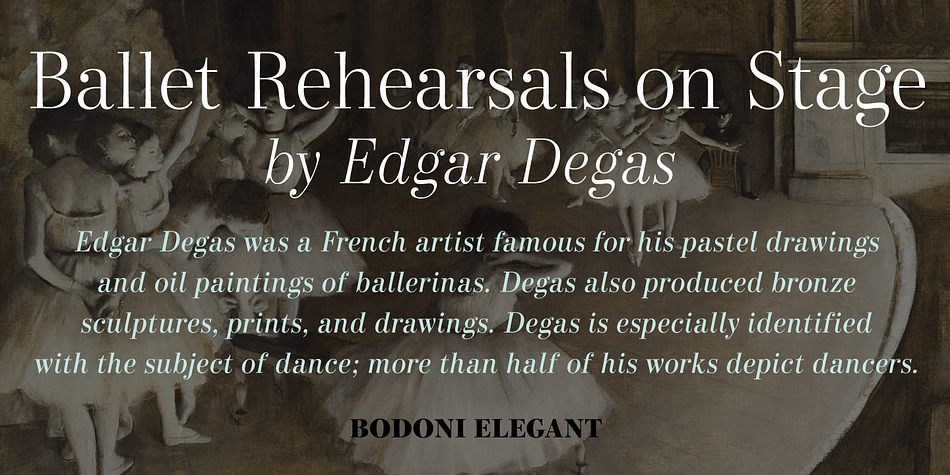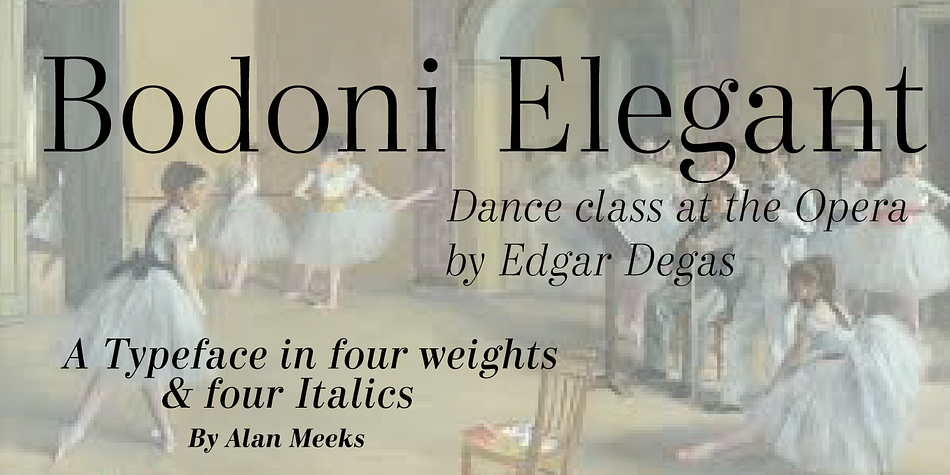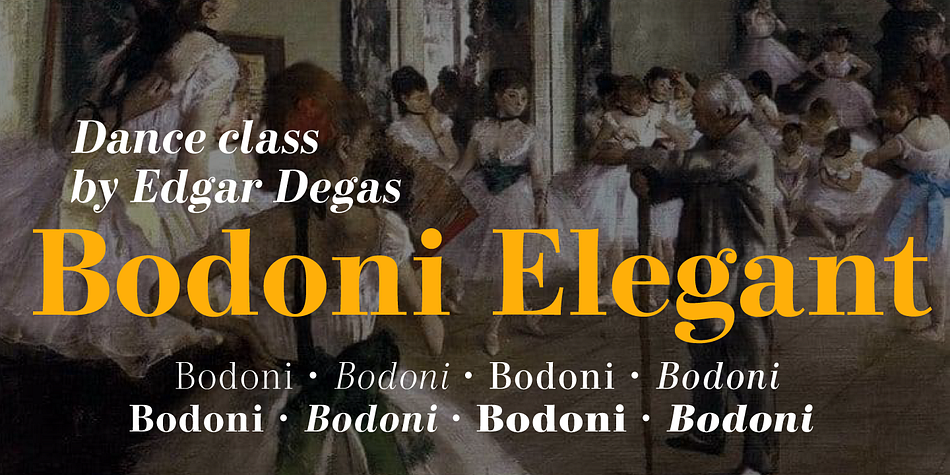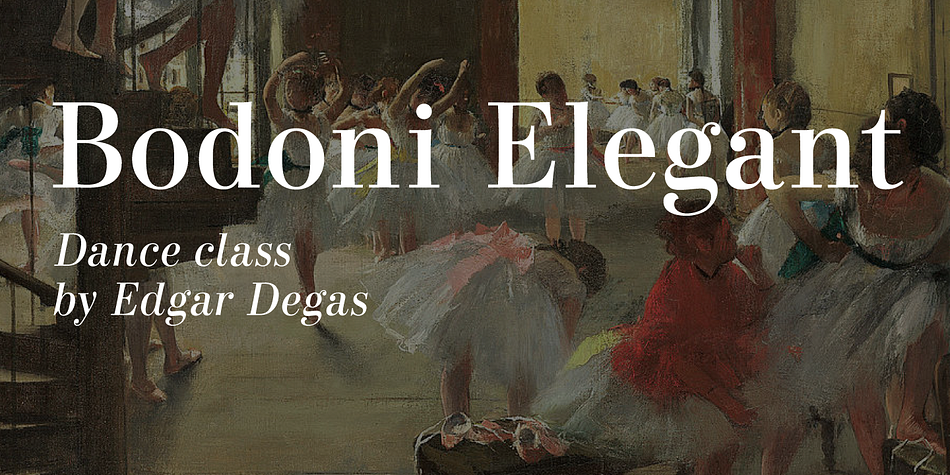
Designed by Alan Meeks, Bodoni Elegant is a serif font family. This typeface has eight styles and was published by Alan Meeks Collection.
Whenever I went to use Bodoni I could never quite find
a version that I was happy with, so I designed my own
incorporating, hopefully the best of all the others.
I decideded to make a slight curve on the uprights,
rather like Optima, because I thought this added a touch
of elegance which many of the other versions lacked
.....hence the name.